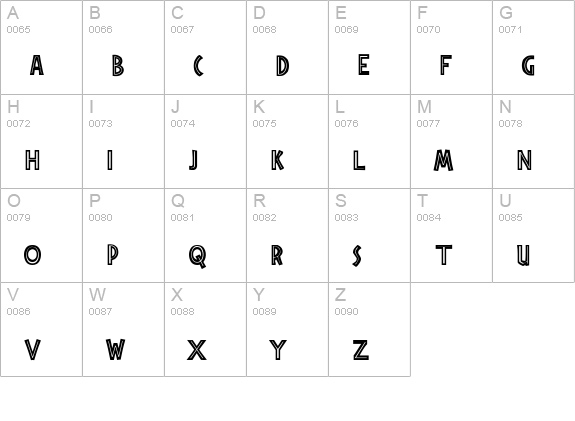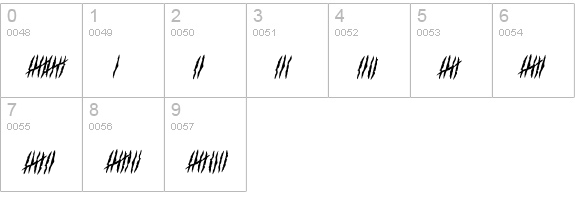
Are you ready to embark on a thrilling journey back in time to a land where dinosaurs roamed? Introducing the Jurassic Park font, a magnificent typeface that perfectly captures the essence of adventure and excitement. This font is bound to transport you to the majestic world of prehistoric creatures, making your designs come alive with the primal energy of these ancient beasts. The Jurassic Park font features bold and rugged letterforms, reminiscent of the untamed wilderness that once existed millions of years ago. Each character is meticulously designed to evoke a sense of awe and wonder, just like the awe-inspiring dinosaurs that once ruled the Earth. Whether you are creating a poster, a logo, or any other visual masterpiece, this font will add a touch of prehistoric grandeur to your creations. What's even more exciting is that the Jurassic Park font is free! Yes, you read that right. You can freely download this incredible typeface at FontsMarket.com, the ultimate destination for font enthusiasts. With just a few clicks, you can unleash the power of the Jurassic Park font and bring a piece of the past into the present. With its strong presence and captivating charm, the Jurassic Park font is perfect for a wide range of projects. It will add an extra layer of authenticity to your dinosaur-themed party invitations, infuse your movie posters with the spirit of adventure, and make your educational materials truly engaging for young learners. So don't wait any longer – embrace the untamed beauty of the Jurassic Park font and let your imagination run wild. Download it for free at FontsMarket.com and get ready to embark on a design journey that will transport you to a world long gone, but never forgotten. Let the Jurassic Park font be your guide as you unleash the power of the past in the present.